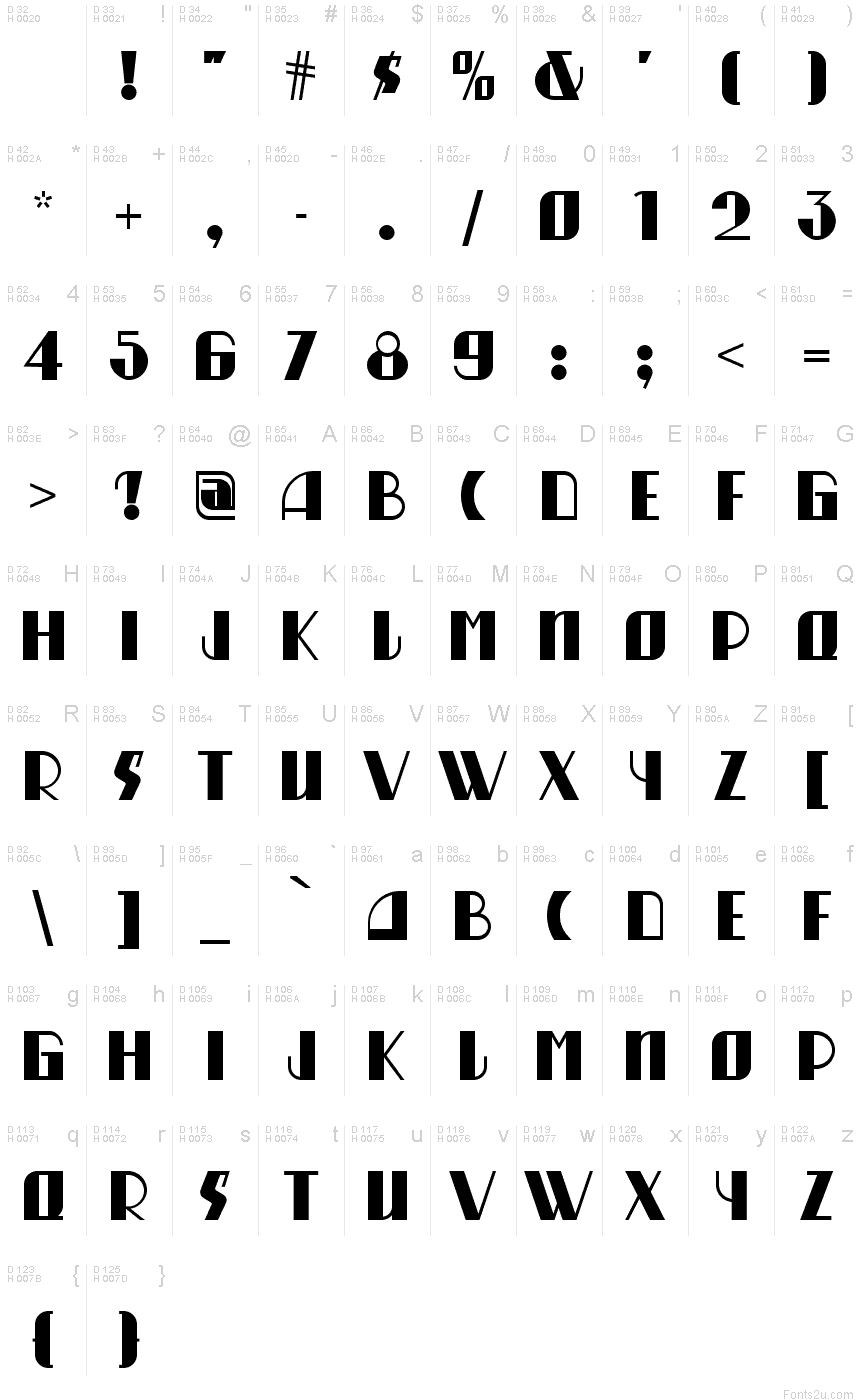
MunchausenNF
Munchausen NF by Nick Curtis is a free Art Deco display font with a sleek, poster-era rhythm. The letters are drawn as towering verticals and clean geometric curves, giving the alphabet a streamlined 1920s–30s feel that looks formal, theatrical, and a little cinematic.
It fits naturally in vintage branding, cocktail menus, book covers, film title cards, and fashion editorials, where a free font with this much height can carry a line on shape alone. Use it for short headlines, initials, or monograms when you want that narrow, architectural silhouette to do most of the work.